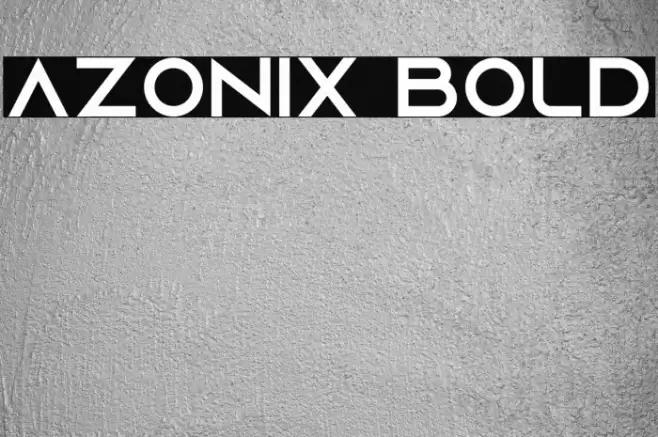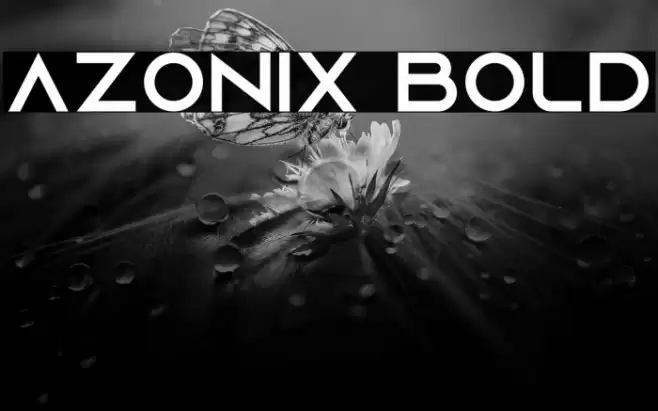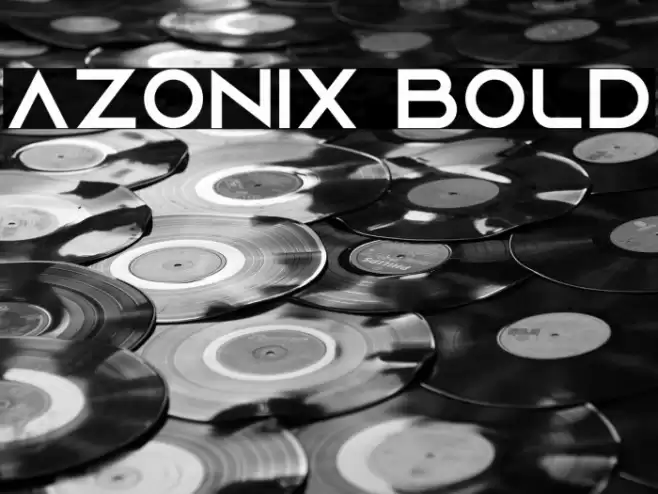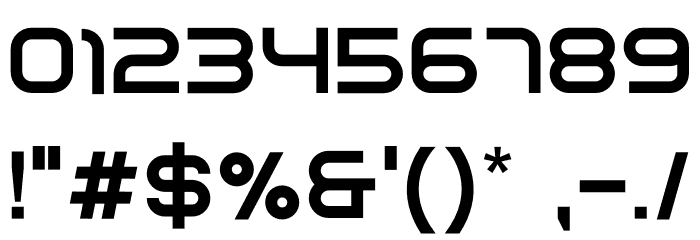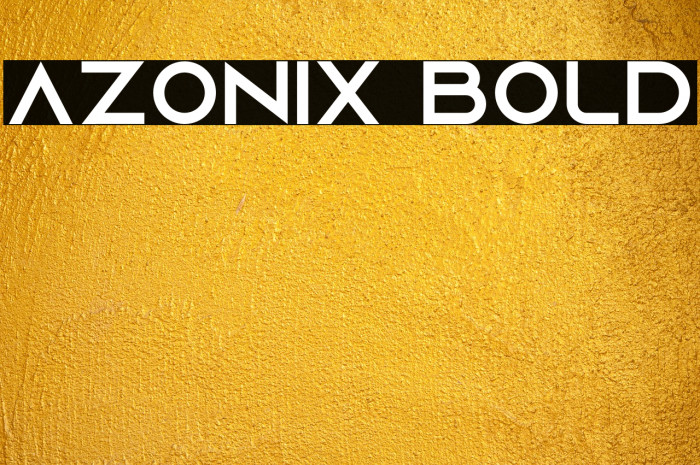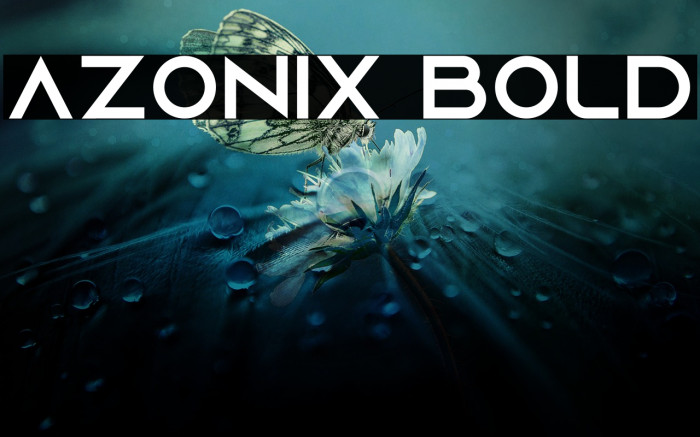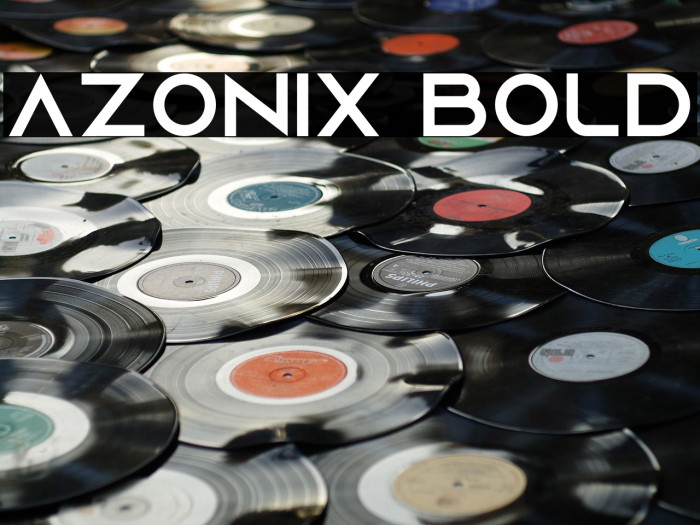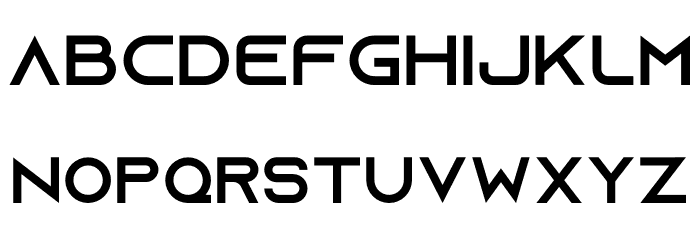
Azonix Bold Font
Azonix Bold Description
This font features a bold, geometric sans-serif style with a modern and futuristic aesthetic. The characters are constructed with clean, straight lines and sharp angles, giving them a sleek and minimalistic appearance. The uppercase letters are uniform in height, while the lowercase letters maintain a consistent baseline, enhancing readability. The numerals and special characters follow the same geometric design, ensuring cohesion across all elements. The font's bold weight and high contrast make it highly legible, even at smaller sizes, while its unique style adds a distinctive touch to any design.
A bold, geometric sans-serif font with a modern, futuristic style from Uncategorized fonts.
- Proposed Projects: Ideal for tech branding, futuristic designs, digital interfaces, and modern advertising.
- Use Case: Headlines, Logos, Digital Interfaces